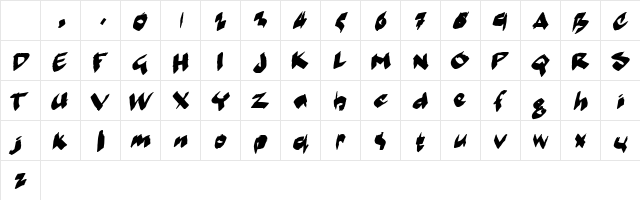
Complete markerMoe II Regular glyph index. Displaying only characters natively supported by markerMoe II Regular font.
markerMoe II is a composed and adaptable typeface that performs quietly and consistently across a wide range of design contexts.
Pro Tip: Use markerMoe II in both headline and body roles to test its range before committing to a single application.